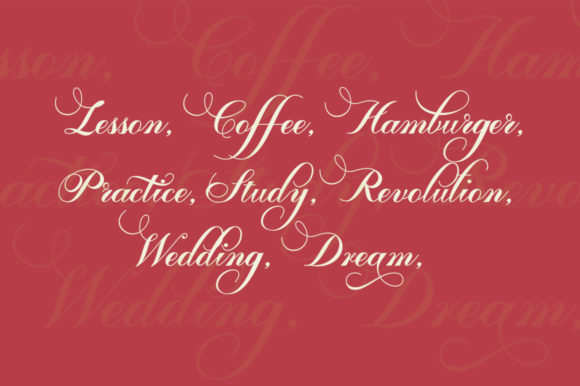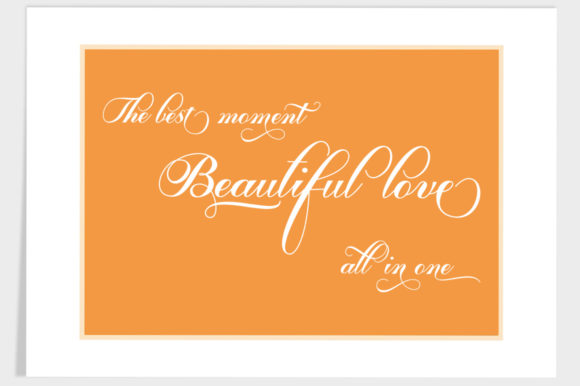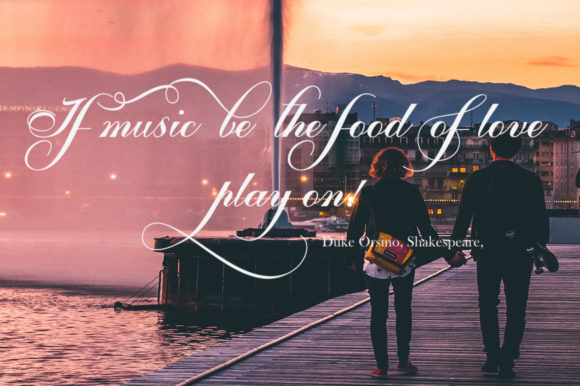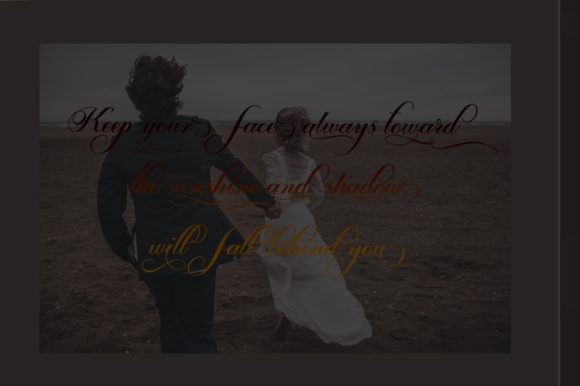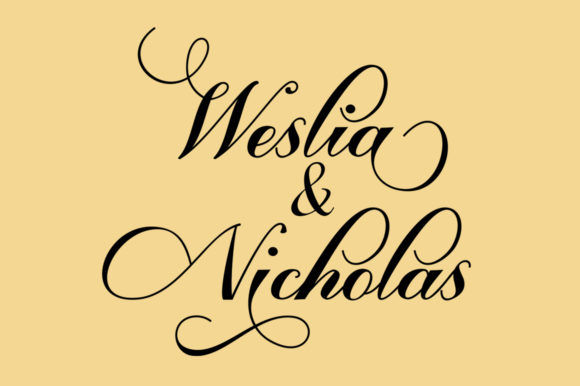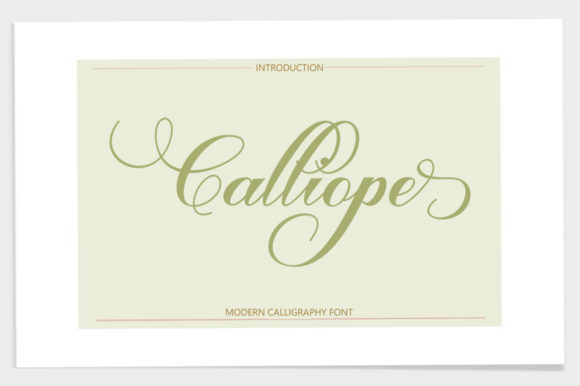
Introducing Calliope Script Font: The Perfect Choice for Modern Designs
The Calliope script font is a stunning modern calligraphy script that has taken the design world by storm. With its trendy and feminine style, irregular baseline, and elegant flow, it’s the perfect choice for designers and crafters looking to add a touch of sophistication to their projects. In this article, we’ll dive into the world of Calliope script font, exploring its features, uses, and benefits.
A Modern Calligraphy Script
Calliope script font is a modern take on traditional calligraphy. Its unique blend of classic and contemporary elements makes it stand out from other script fonts. The irregular baseline adds a touch of whimsy and playfulness, making it perfect for designs that require a bit of personality. The font’s trendy and feminine style makes it a popular choice for designs that require a touch of elegance and sophistication.
Perfect for Wedding Invitations and Stationery
One of the most popular uses for Calliope script font is in wedding invitations and stationery. The font’s elegant flow and sophisticated style make it perfect for formal wedding invitations, thank you cards, and other wedding-related designs. The irregular baseline adds a touch of romance and whimsy, making it perfect for couples looking to add a personal touch to their wedding stationery.
Ideal for Posters and Marketing Materials
Calliope script font is not just limited to wedding invitations and stationery. Its trendy and feminine style makes it perfect for posters, marketing materials, and other designs that require a touch of elegance and sophistication. The font’s unique blend of classic and contemporary elements makes it stand out from other script fonts, making it perfect for designers looking to create eye-catching and memorable designs.
So, what makes Calliope script font so special? Here are just a few of its key features and benefits:
- Trendy and feminine style: Calliope script font has a trendy and feminine style that makes it perfect for designs that require a touch of elegance and sophistication.
- Irregular baseline: The font’s irregular baseline adds a touch of whimsy and playfulness, making it perfect for designs that require a bit of personality.
- Elegant flow: The font’s elegant flow makes it perfect for designs that require a touch of sophistication and refinement.
- Perfect for wedding invitations and stationery: Calliope script font is perfect for formal wedding invitations, thank you cards, and other wedding-related designs.
- Ideal for posters and marketing materials: The font’s trendy and feminine style makes it perfect for posters, marketing materials, and other designs that require a touch of elegance and sophistication.
Tips for Using Calliope Script Font
Here are a few tips for using Calliope script font in your designs:
- Use it for headings and titles: Calliope script font is perfect for headings and titles, adding a touch of elegance and sophistication to your designs.
- Pair it with a sans-serif font: Pairing Calliope script font with a sans-serif font can create a beautiful contrast and add visual interest to your designs.
- Experiment with different colors: Calliope script font looks stunning in a variety of colors, from soft pastels to bold and bright hues.
- Use it for digital and print designs: Calliope script font is perfect for both digital and print designs, making it a versatile choice for designers.
| Font Name | Calliope Script Font |
| Author | Letterware |
In conclusion, Calliope script font is a stunning modern calligraphy script that is perfect for designers and crafters looking to add a touch of elegance and sophistication to their projects. Its trendy and feminine style, irregular baseline, and elegant flow make it perfect for wedding invitations, thank you cards, posters, and much more. With its versatility and range of uses, Calliope script font is a must-have for any designer or crafter looking to create beautiful and memorable designs.